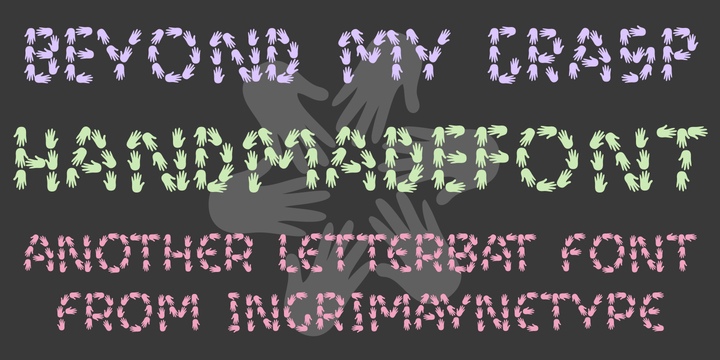
Handmade Font
Handmade Font is perfect for artisan craft branding, handmade goods packaging, craft fair signage, DIY project tutorials, maker workshop materials, artisan market promotions, handcrafted jewelry labels, and creative hobby publications where authentic craftsmanship and personal creation are emphasized.
What makes Handmade Font so exciting is its artisanal ability to convey genuine craftsmanship and personal creation through organic letterforms that embody the care and individual attention of handmade production while maintaining excellent readability for craft communications. The authentic character design reflects the dedication and creative passion that defines quality handmade goods and artisan excellence.
The Handmade Font family includes light, regular, medium, and bold weights, with craft-inspired script variants and artisan ornamental elements that provide comprehensive tools for creating authentic maker branding and handcrafted design systems.
This distinctive typeface captures the essence of artisan tradition, combining handcraft authenticity with contemporary maker movement requirements. The Handmade Font Free Download gives craft businesses access to typography that communicates genuine craftsmanship and handmade quality.
The font's organic character variations and handcrafted details create immediate associations with artisan quality and personal attention to detail. Each letterform has been designed to evoke the individual care and creative skill that defines authentic handmade products and artisan services.
Handmade Font excels in creating meaningful brand identities that celebrate human creativity and individual craftsmanship. The typeface's artisan character makes it ideal for craft businesses, maker spaces, and creative entrepreneurs emphasizing handmade quality and personal artistic expression.
From pottery studios to woodworking shops, this font brings authentic craftsmanship appeal that resonates with customers seeking genuine handmade goods and artisan quality. The versatile design maintains its handcrafted character across both traditional craft applications and modern digital maker platforms.